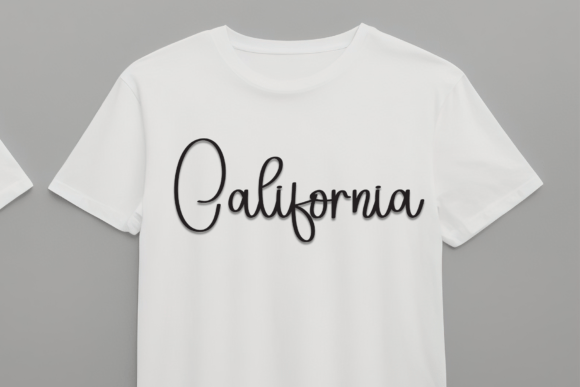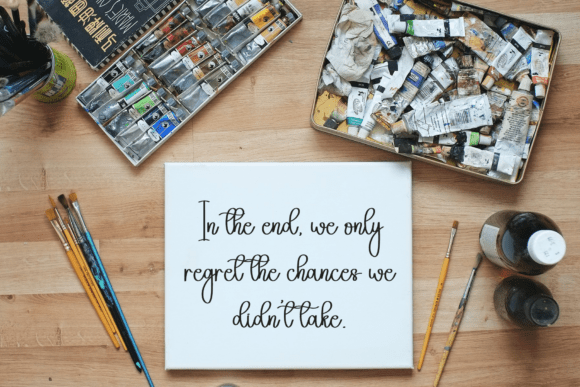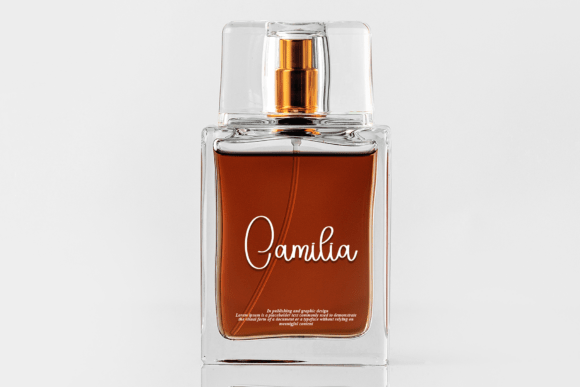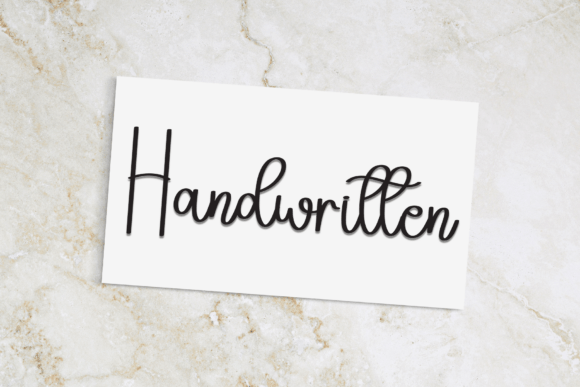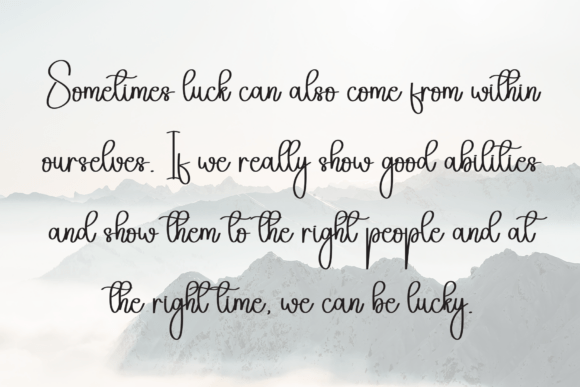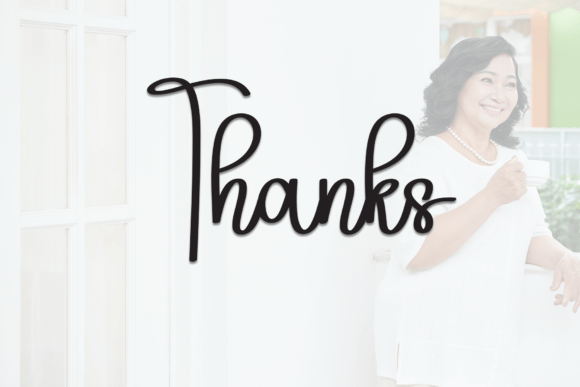
Discover the Charm of Aunty Font: A Simple yet Stylish Handwritten Font
In the world of typography, a font can make or break the aesthetic of a project. For designers and crafters seeking a handwritten touch with a personal and welcoming tone, Aunty Font is an excellent choice. This simple yet stylish handwritten font captures the warmth and authenticity of casual penmanship, making it perfect for a wide range of applications.
The Characteristics of Aunty Font
Aunty Font boasts flowing strokes, tall characters, and a slightly playful rhythm that brings a sense of elegance and charm to any project. Its modern yet approachable design makes it an ideal choice for designers seeking a font that balances sophistication with a personal touch. The font’s unique character set includes a range of glyphs, swashes, and alternate characters, allowing for endless creativity and flexibility.
Aunty Font is a versatile choice for designers, suitable for a wide range of projects, including:
- Branding: Use Aunty Font to create a unique and memorable brand identity that stands out from the crowd.
- Invitations: Add a personal touch to your invitations, whether it’s a wedding, birthday, or baby shower.
- Blog Titles: Elevate your blog’s aesthetic with Aunty Font’s elegant and playful design.
- Heartfelt Notes: Use Aunty Font to add a touch of warmth and sincerity to your handwritten notes and letters.
Why Choose Aunty Font?
With so many fonts available, why choose Aunty Font? Here are just a few reasons:
- Unique Character: Aunty Font offers a distinct and stylish handwritten look that sets it apart from other fonts.
- Versatility: Use Aunty Font for a wide range of projects, from branding and invitations to blog titles and personal notes.
- Modern Elegance: Aunty Font balances modern sophistication with a playful, approachable design.
Tips for Using Aunty Font
To get the most out of Aunty Font, here are a few tips:
- Experiment with Swashes: Use Aunty Font’s swashes and alternate characters to add a touch of elegance and flair to your designs.
- Mix and Match: Combine Aunty Font with other fonts to create a unique and eye-catching design.
- Play with Size: Use Aunty Font in different sizes to create visual interest and hierarchy in your designs.
Aunty Font is a simple yet stylish handwritten font that offers a unique and welcoming tone to any project. With its flowing strokes, tall characters, and playful rhythm, it’s perfect for designers and crafters seeking a personal and elegant touch. Whether you’re working on branding, invitations, blog titles, or heartfelt notes, Aunty Font is an excellent choice. Its PUA encoding makes it easy to use, and its versatility ensures it will become a go-to font in your design arsenal.